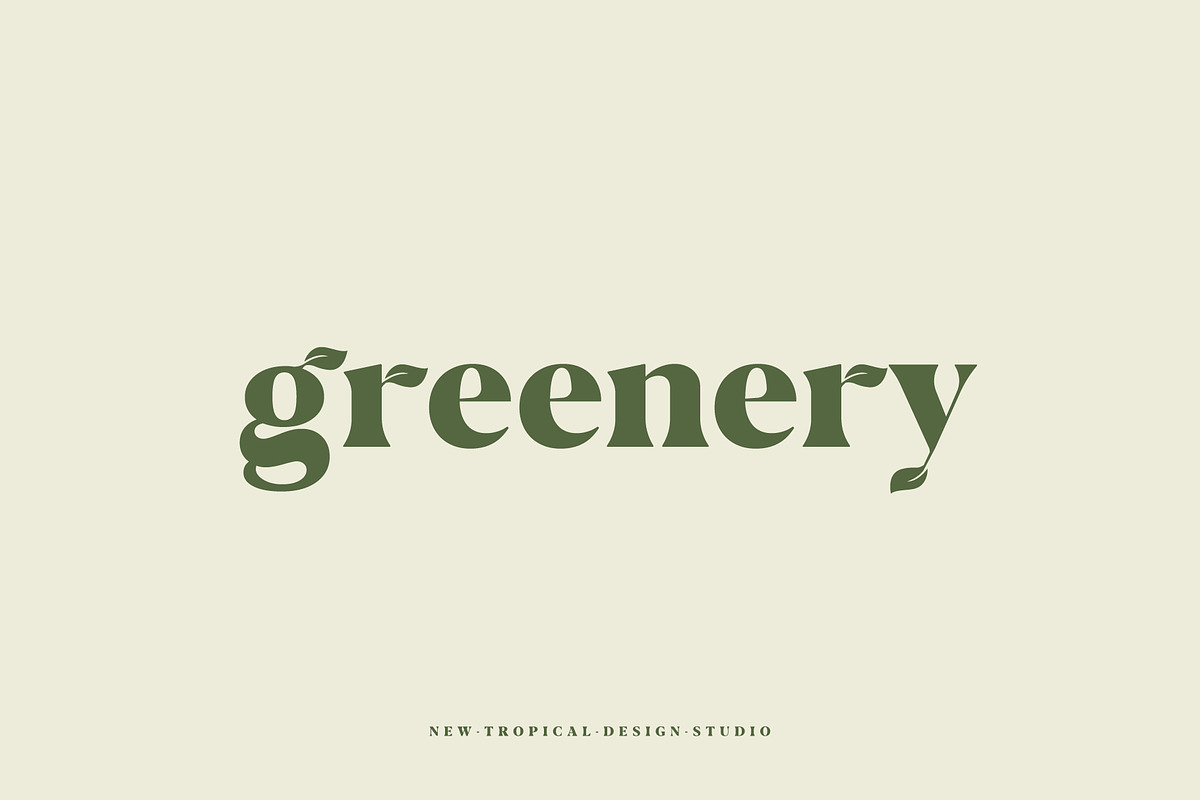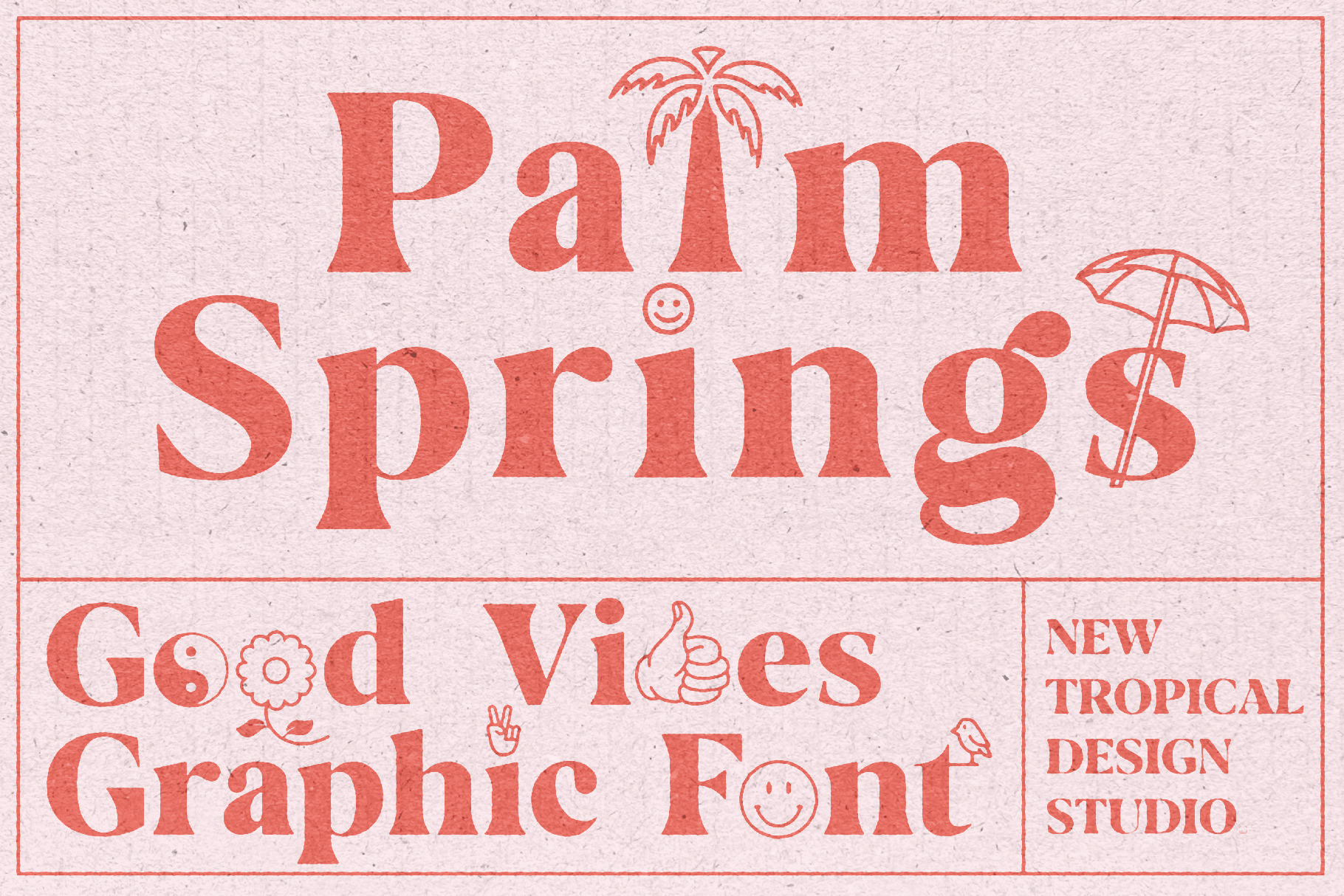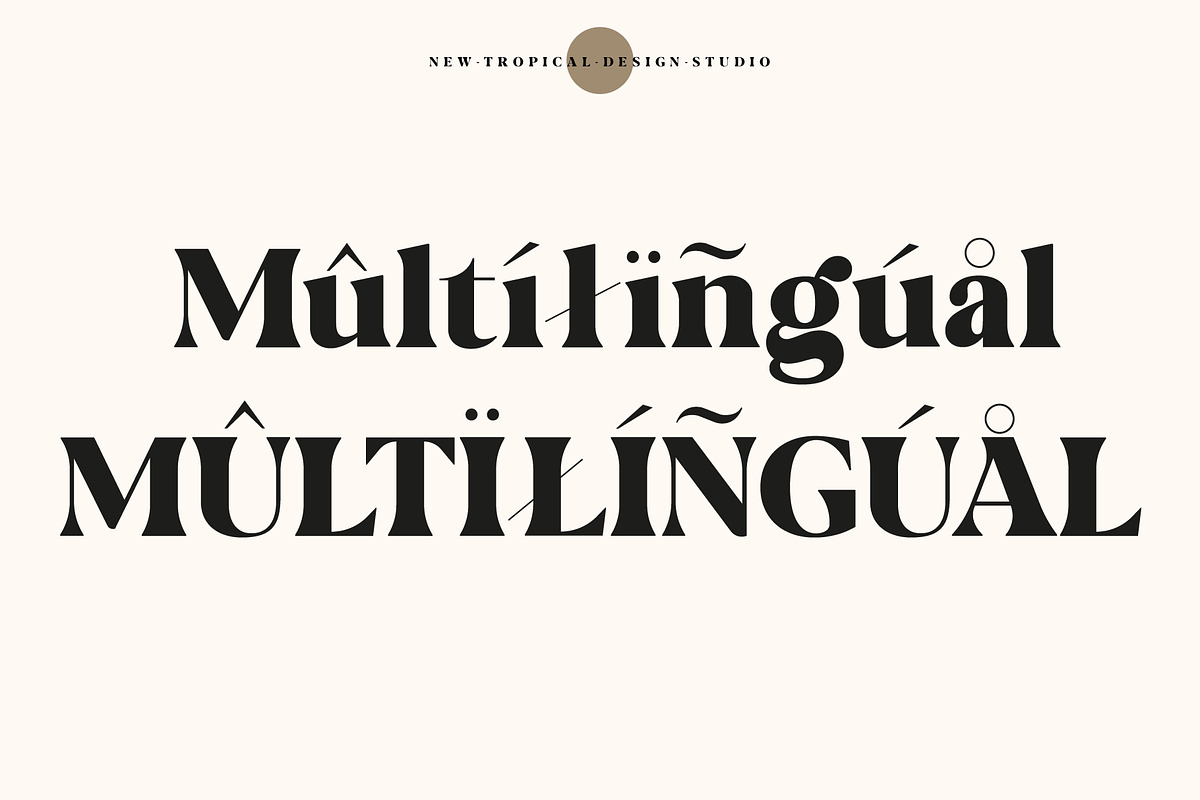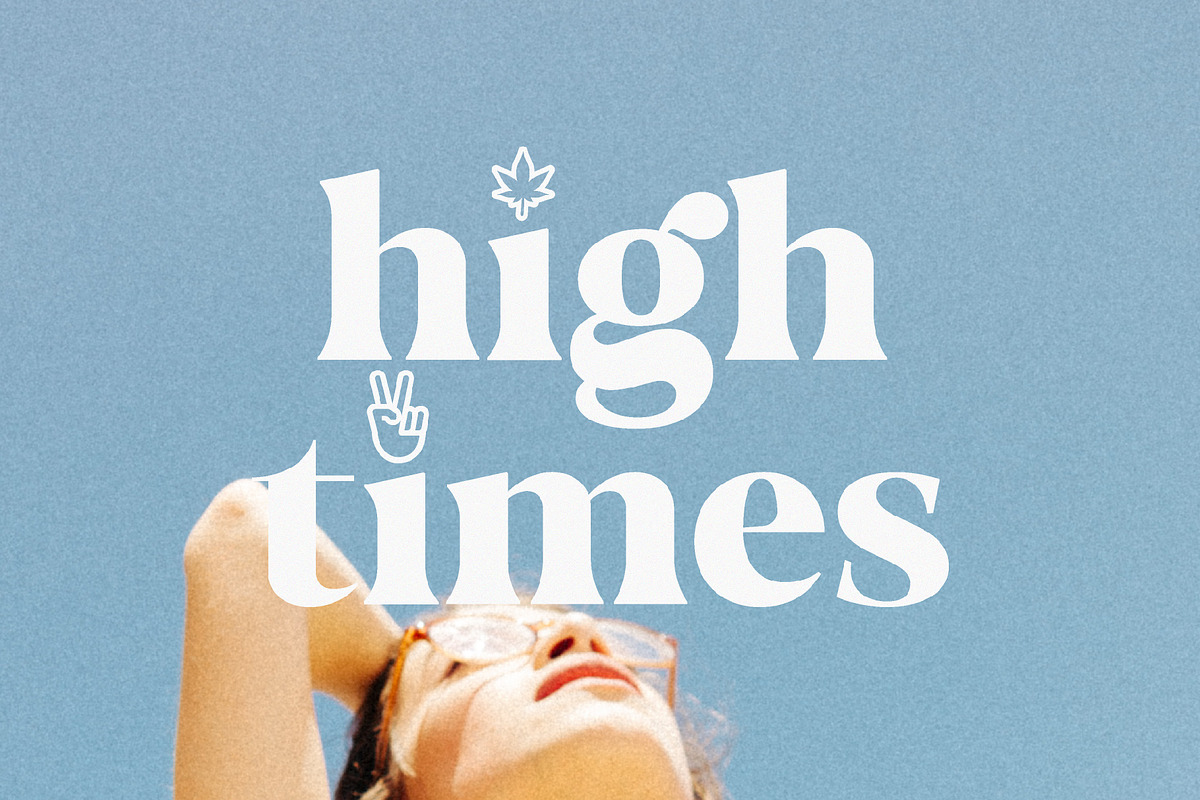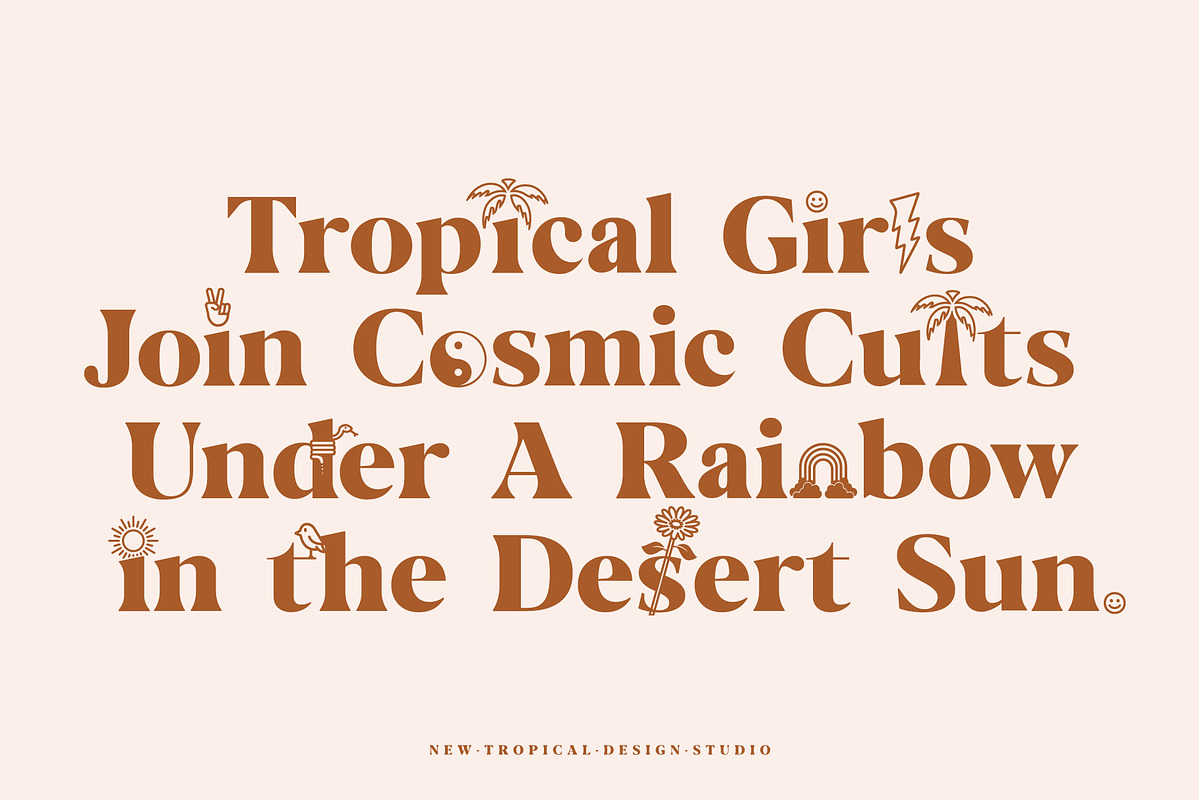
Palm Springs Graphic Font
Palm Springs Graphic Font is a one of kind typeface with built in graphics. Just type your text and add intertwined graphic letters with a single click. It's never been easier to get those good vibes and 70s styles.
Full upper/lowercase, numbers, punctuation and graphic letters
Multilingual support ( including polish )